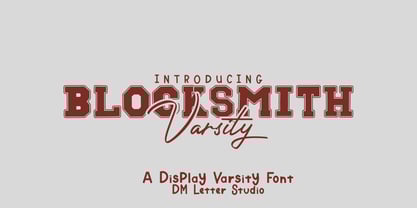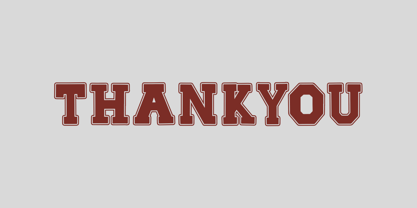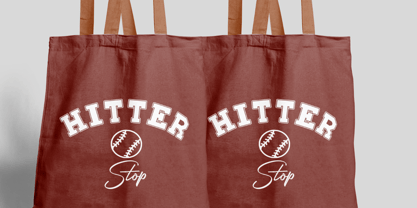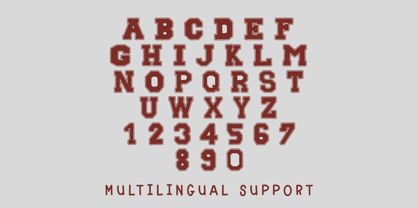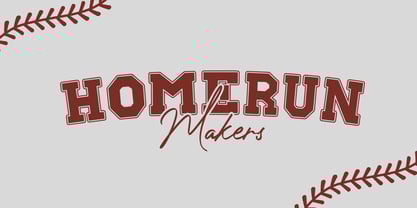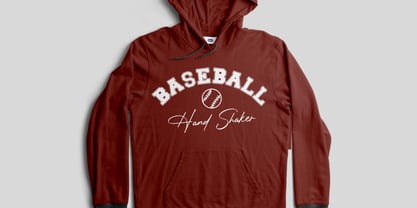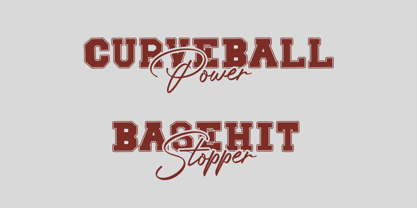
Blocksmith Varsity
by DM Studio
The Blocksmith Varsity Font Family was designed by Dimas Prasetyo and published by DM Studio. Blocksmith Varsity contains 1 styles.
Blocksmith Varsity – Bold Athletic Varsity Font Blocksmith Varsity is a powerhouse display font built for sports, spirit, and standout designs. With strong block shapes, sharp serifs, and a classic varsity aesthetic, this all-caps font captures the look of team jerseys, college banners, and retro athletic graphics. Whether you're creating logos, merchandise, or school apparel, Blocksmith Varsity brings tradition and energy into every character. Features: Traditional Varsity Style: Inspired by vintage school lettering and championship graphics. Perfect for Sports & School Projects: Ideal for team logos, spirit gear, stadium signage, and campus events. Bold and Structured: Wide letterforms with strong verticals and tight spacing for maximum impact. Complete Character Set: A–Z uppercase letters, numbers, punctuation, and multilingual accents. Easy Installation: Compatible with both Mac and Windows systems.
Designers: Dimas Prasetyo
Publisher: DM Studio
Foundry: DM Studio
Blocksmith Varsity